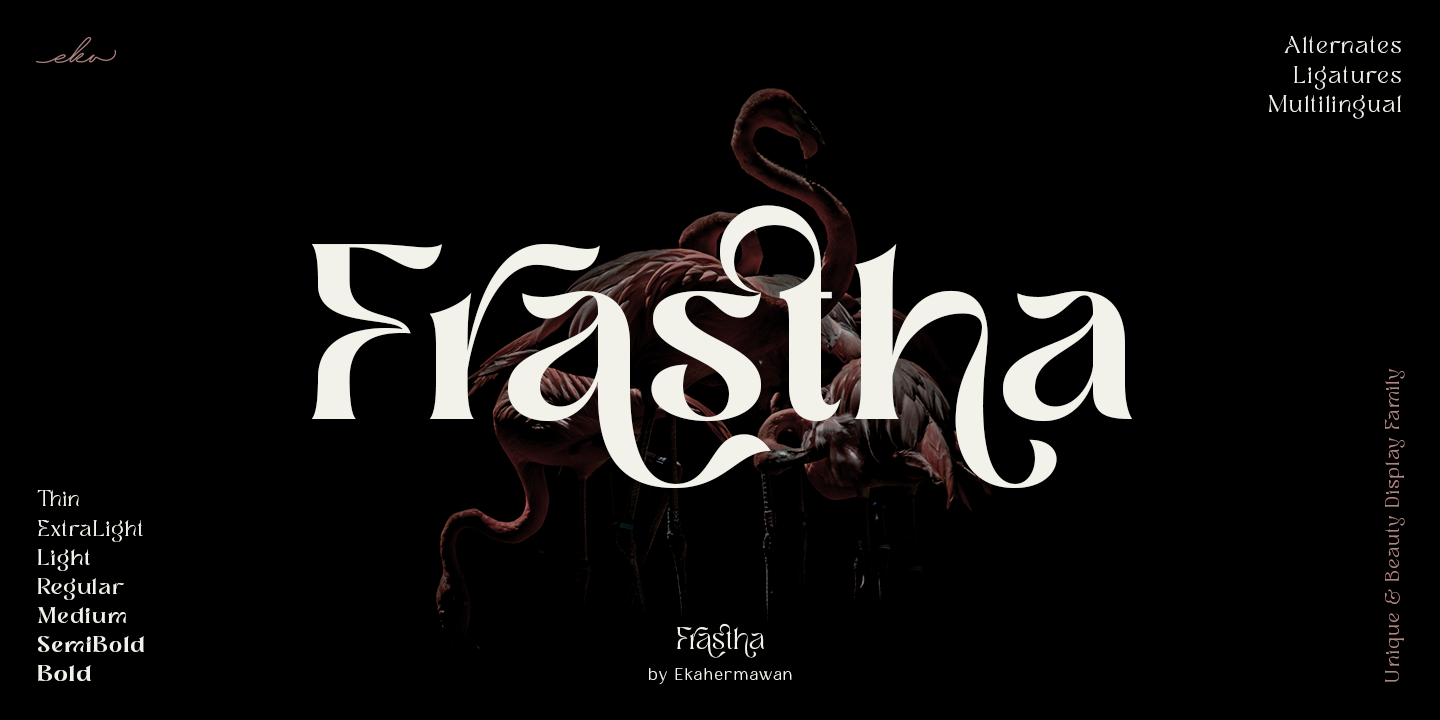
Frastha Font Free Download is a stylish and elegant serif typeface that blends classic charm with modern design. Featuring graceful curves and refined strokes, this font is perfect for editorial layouts, luxury branding, invitations, and sophisticated print projects.
Whether you're designing for a premium brand or creating polished marketing materials, Frastha Font Free Download delivers a sense of sophistication and professionalism. Its timeless appeal enhances readability while adding a touch of class to your creative work.